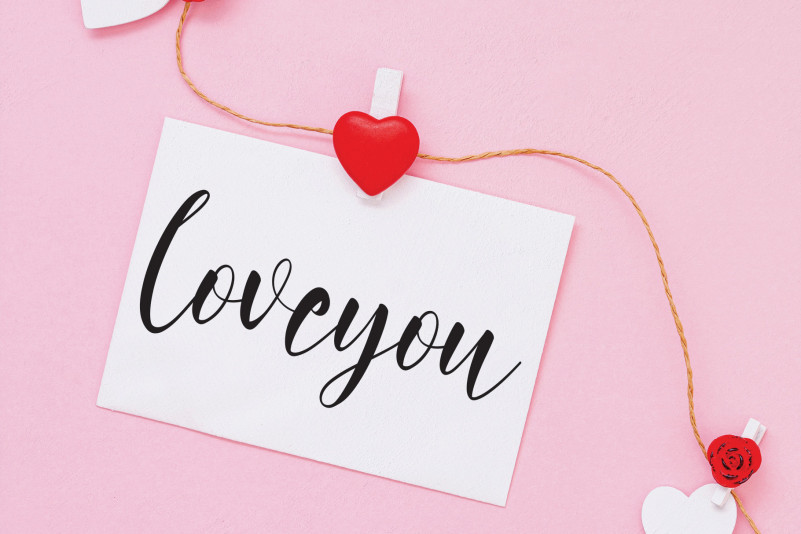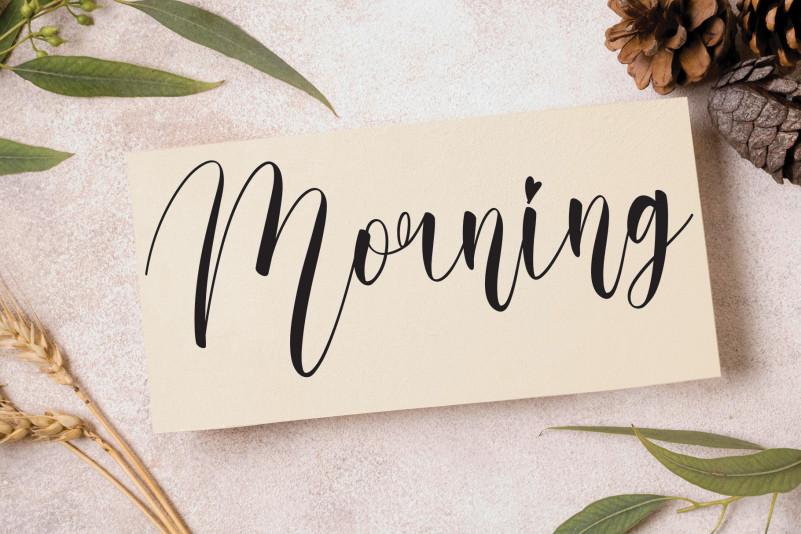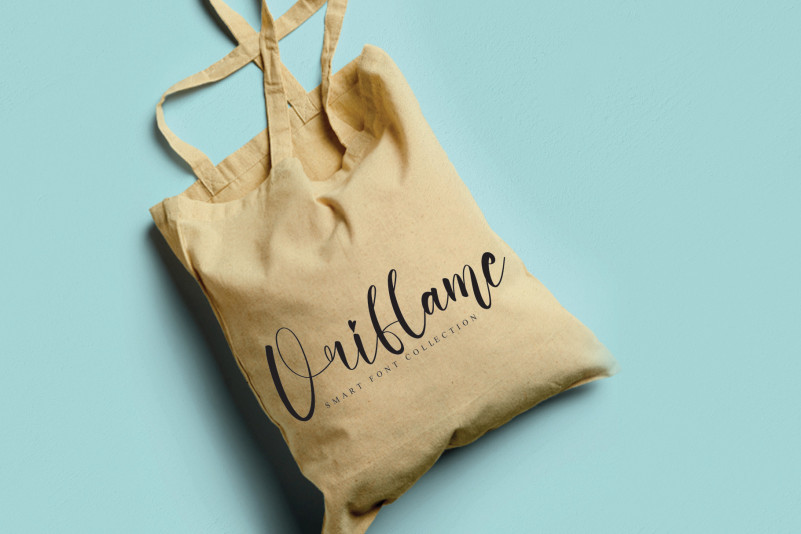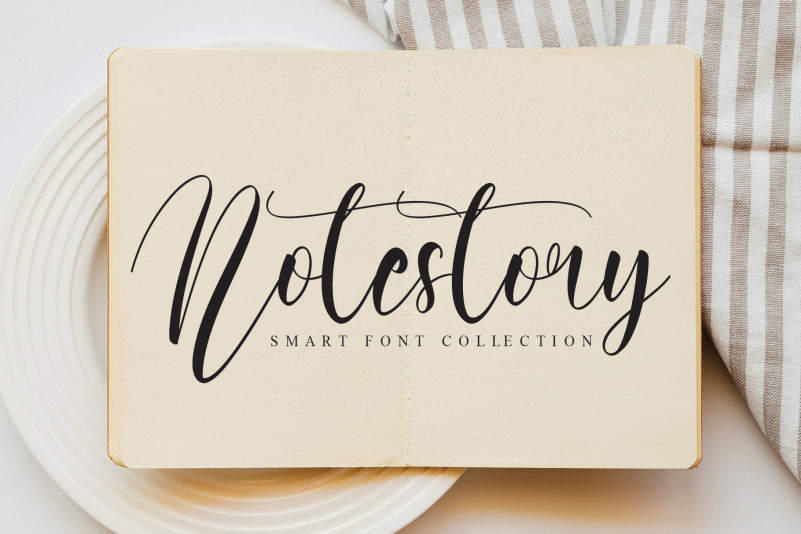
Nissa Font
Nissa Script Font
This is an exquisite serif font with beautifully crafted characters. It will add an elegant and sophisticated touch to any of your beautiful creations ranging from watermarks to labels and more!
the latest style letters are perfect for wall displays, wedding invitations, social media post logos, advertisements, product packaging, product designs, labels, photography, watermarks, invitations, stationery, and any project that requires taste handwriting.